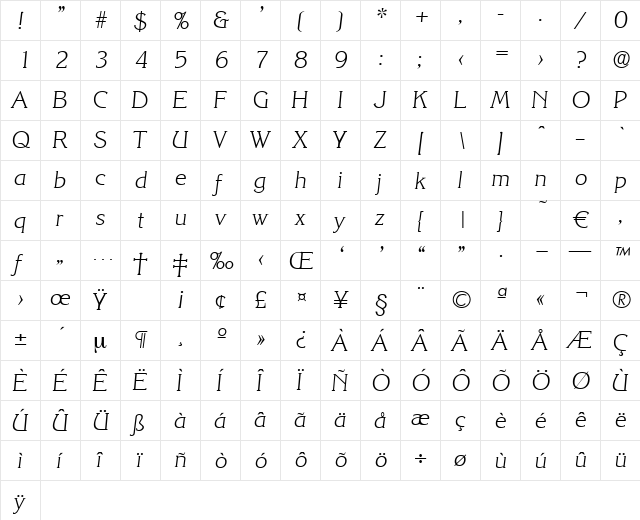
Korinth-XlightIta Regular Font Preview
Korinth-XlightIta Regular
Korinth-XlightIta Regular Font Details
Design Context for Korinth-XlightIta Typeface
Korinth-XlightIta is a composed and adaptable typeface that performs quietly and consistently across a wide range of design contexts. The delicate stroke weight brings airiness and refinement to layouts.